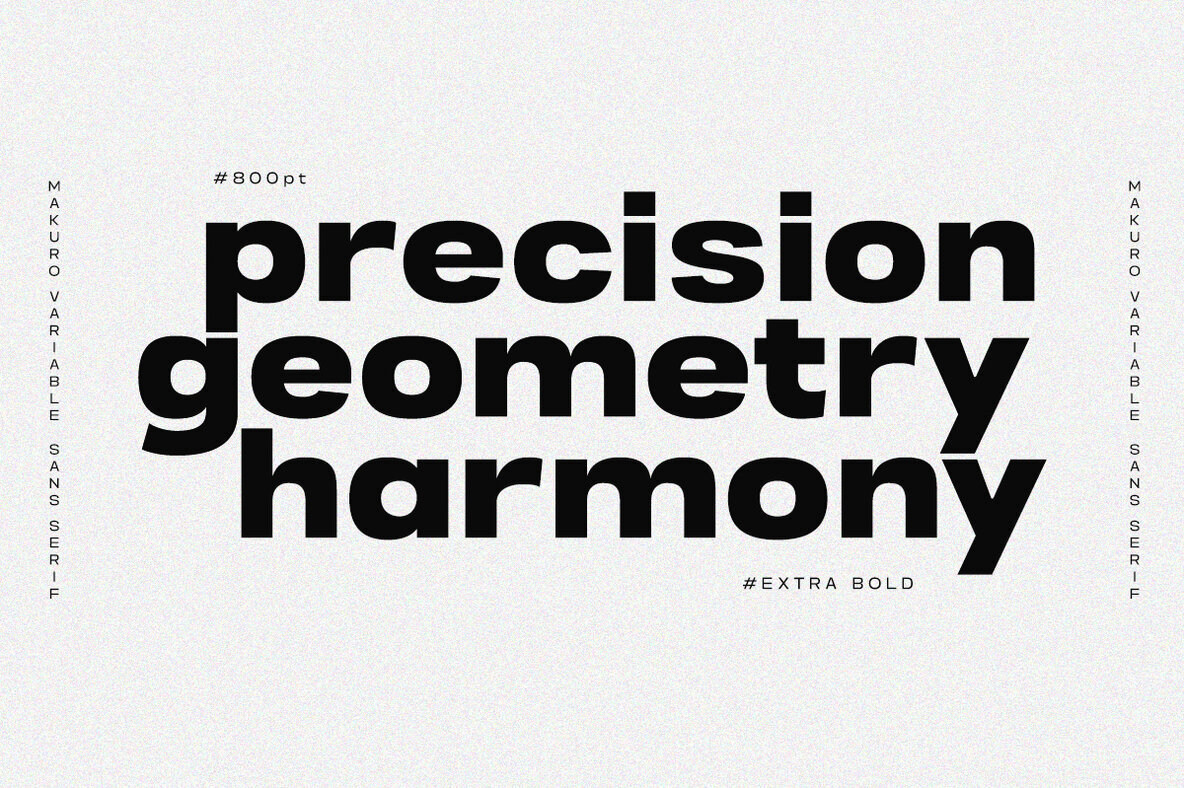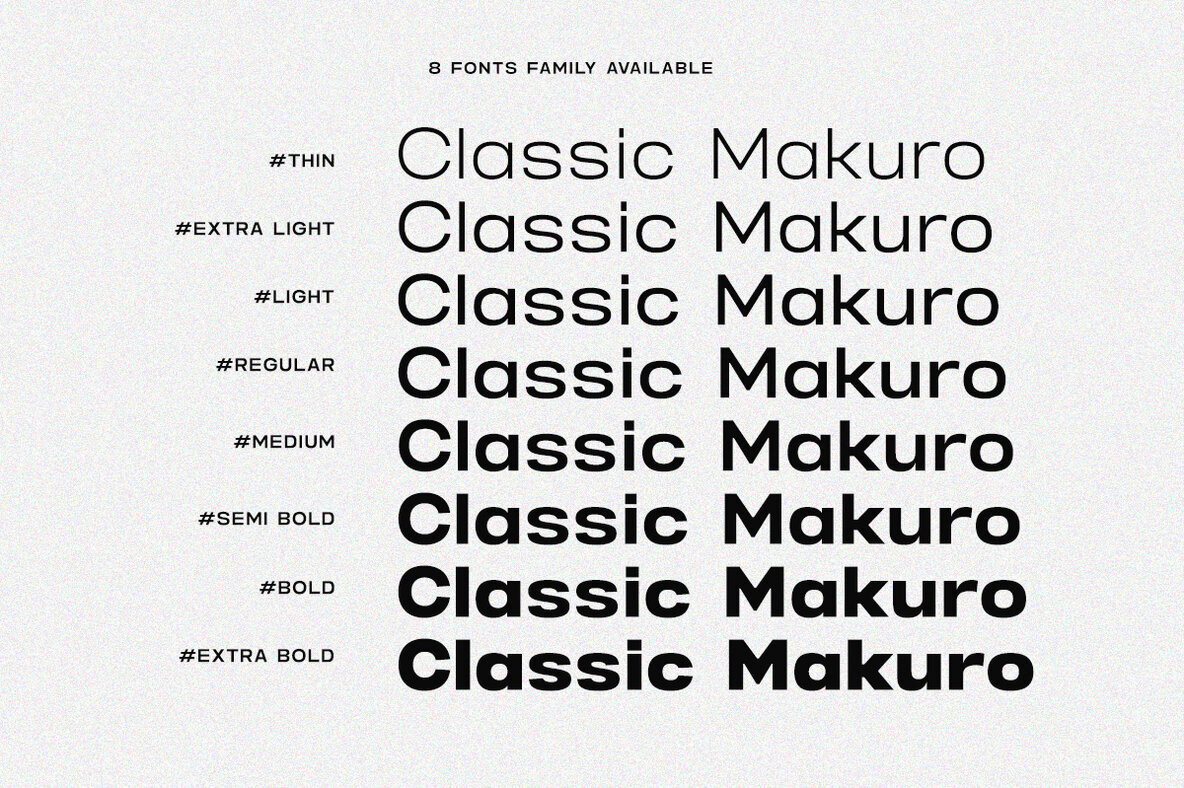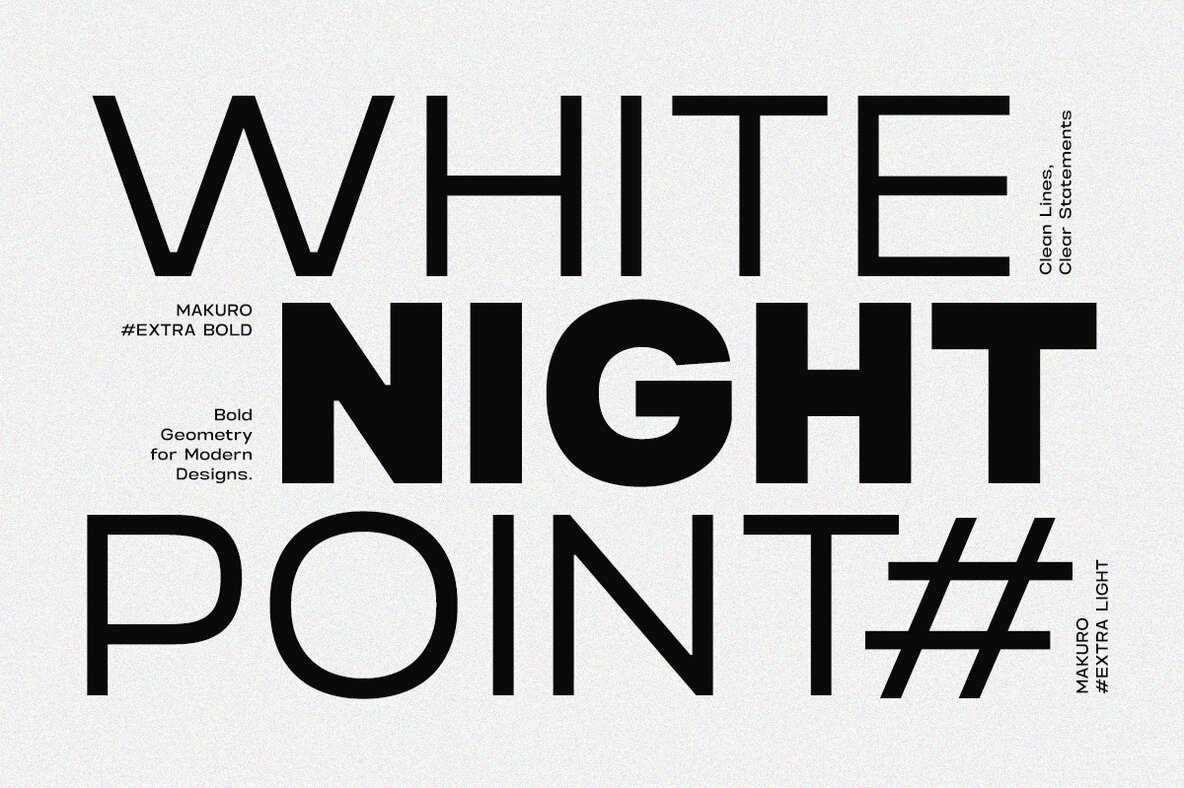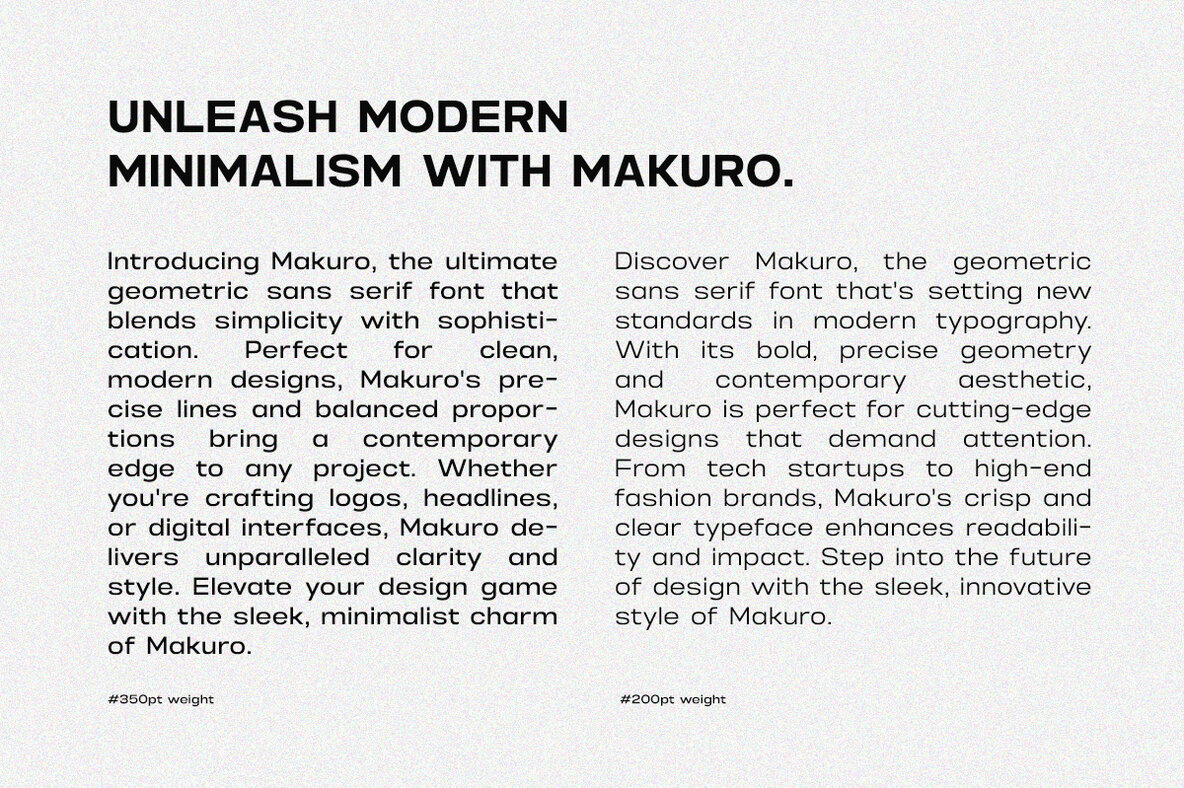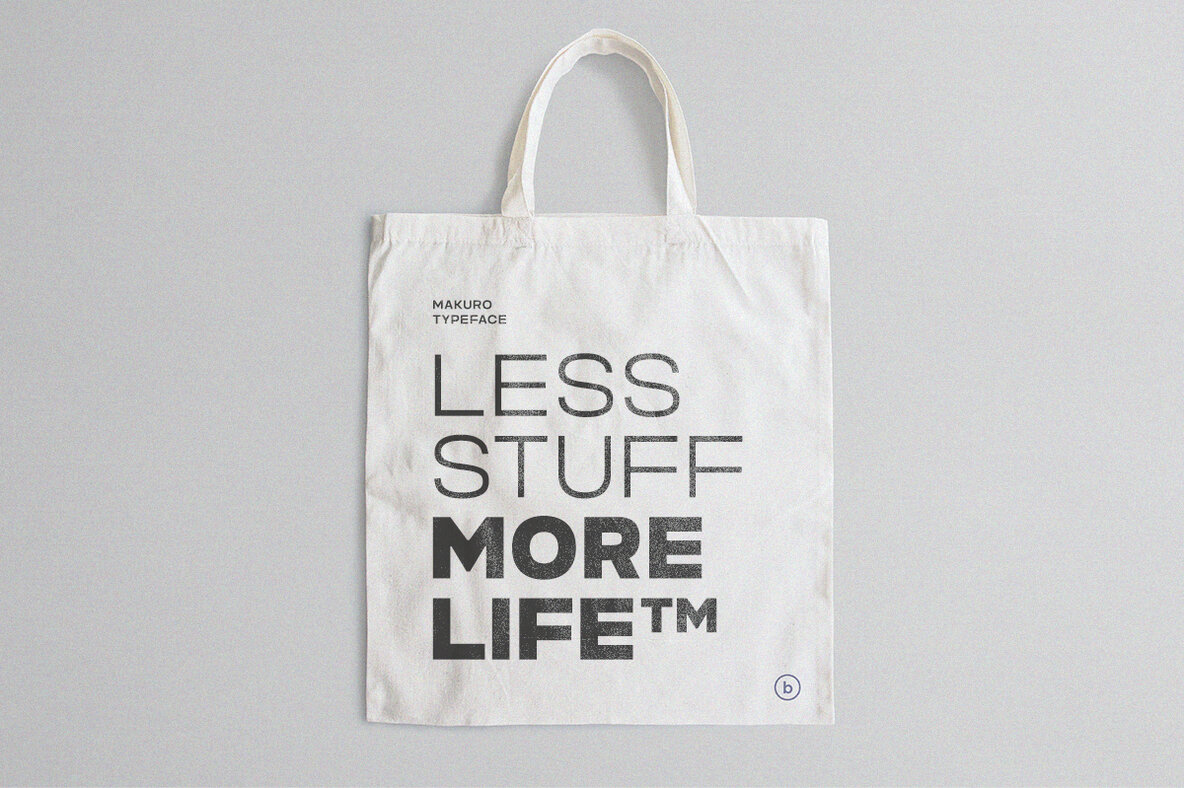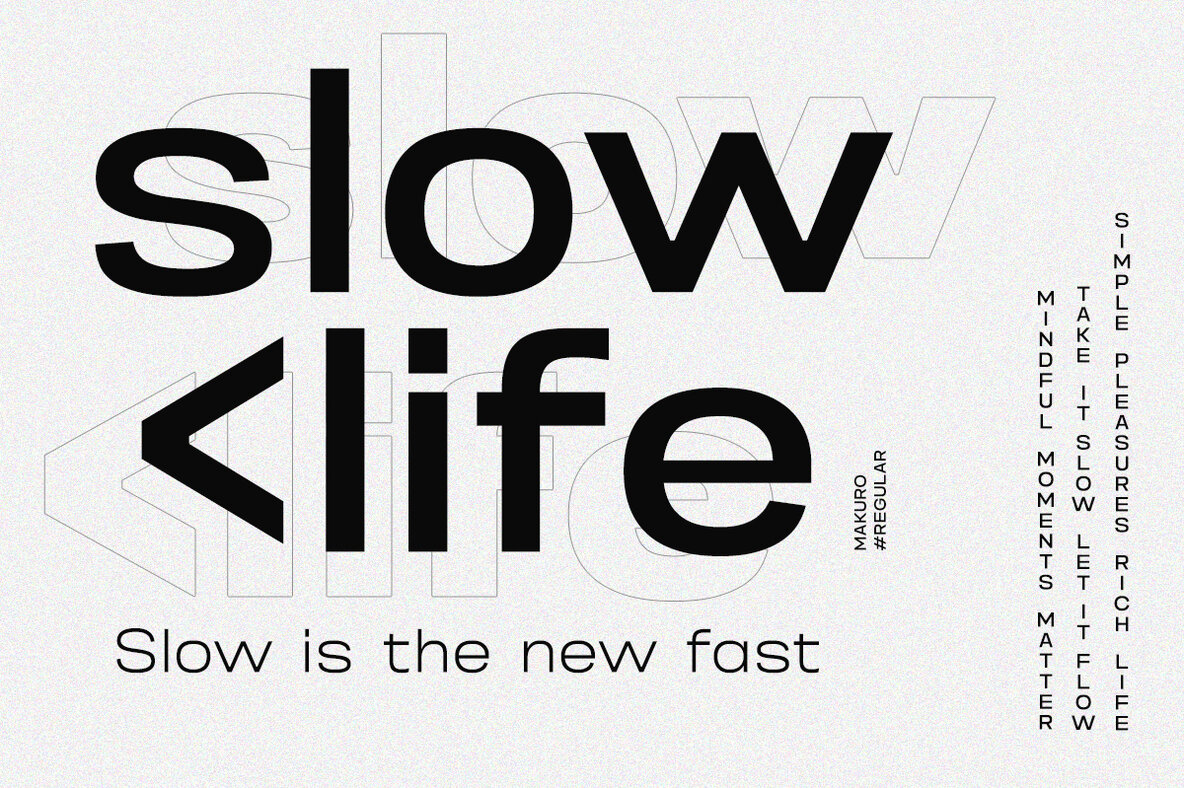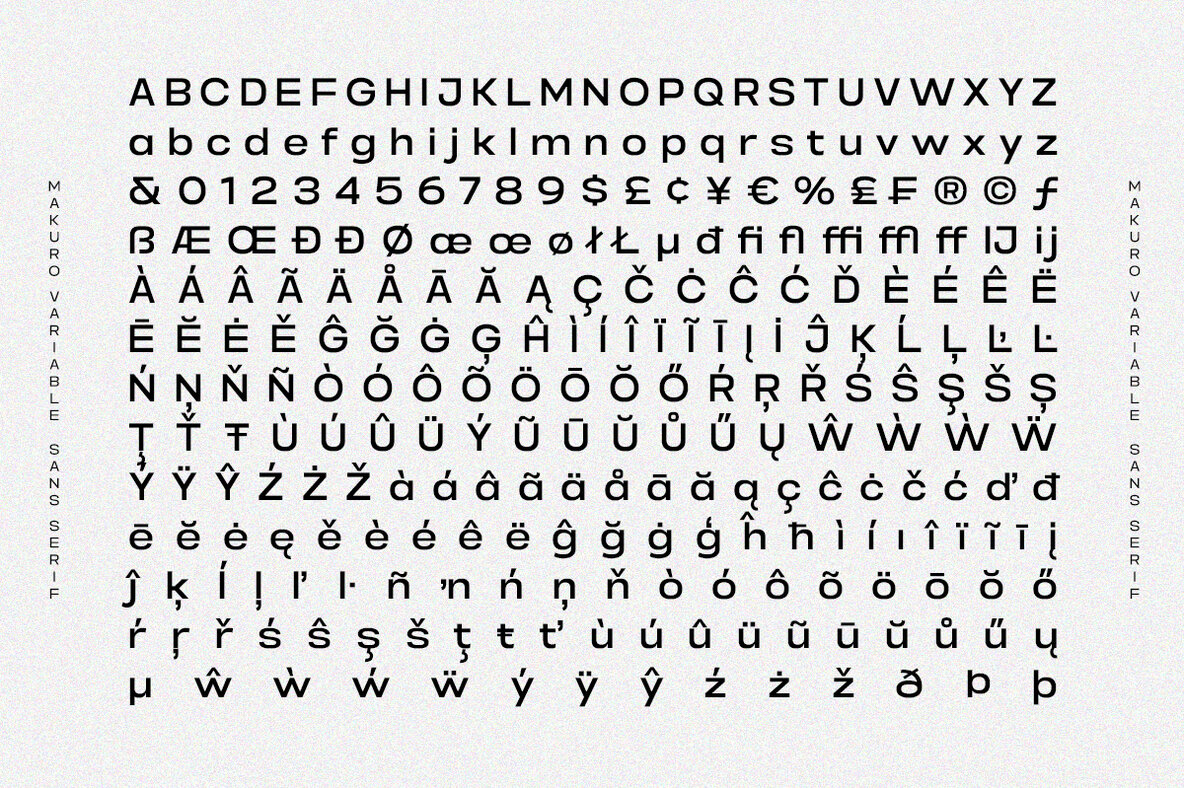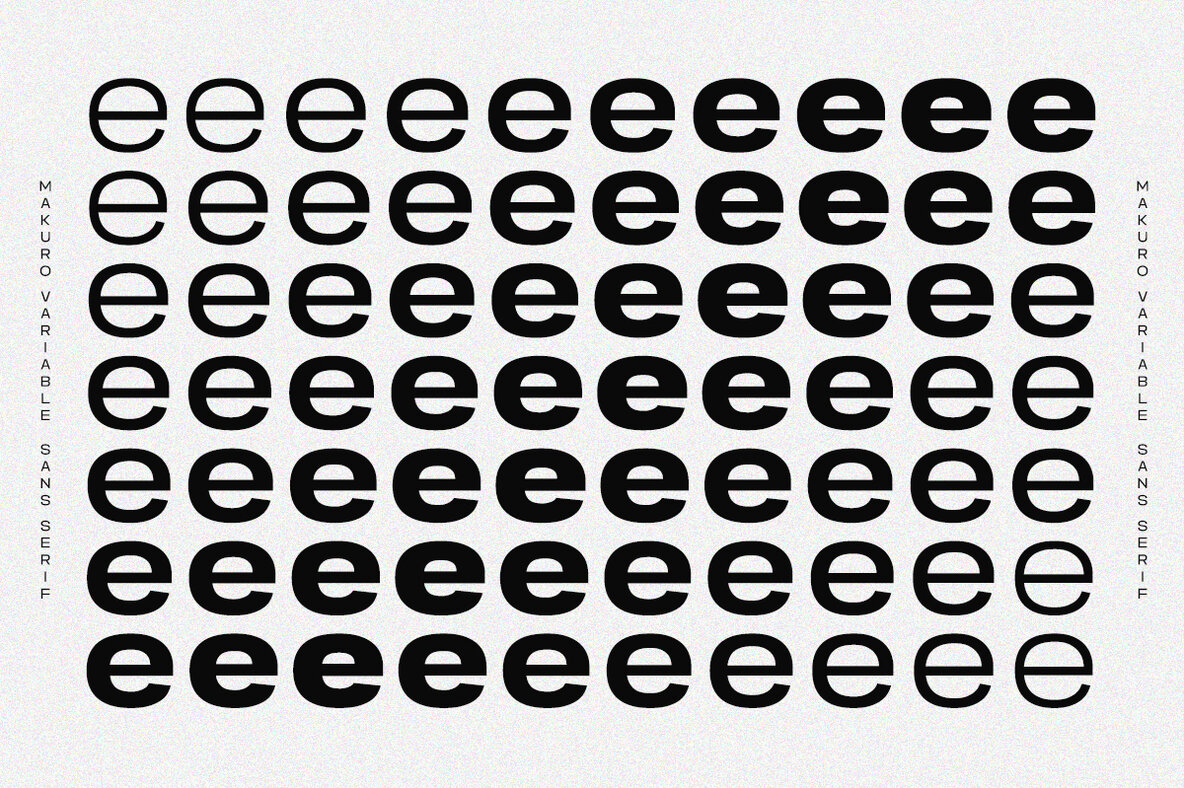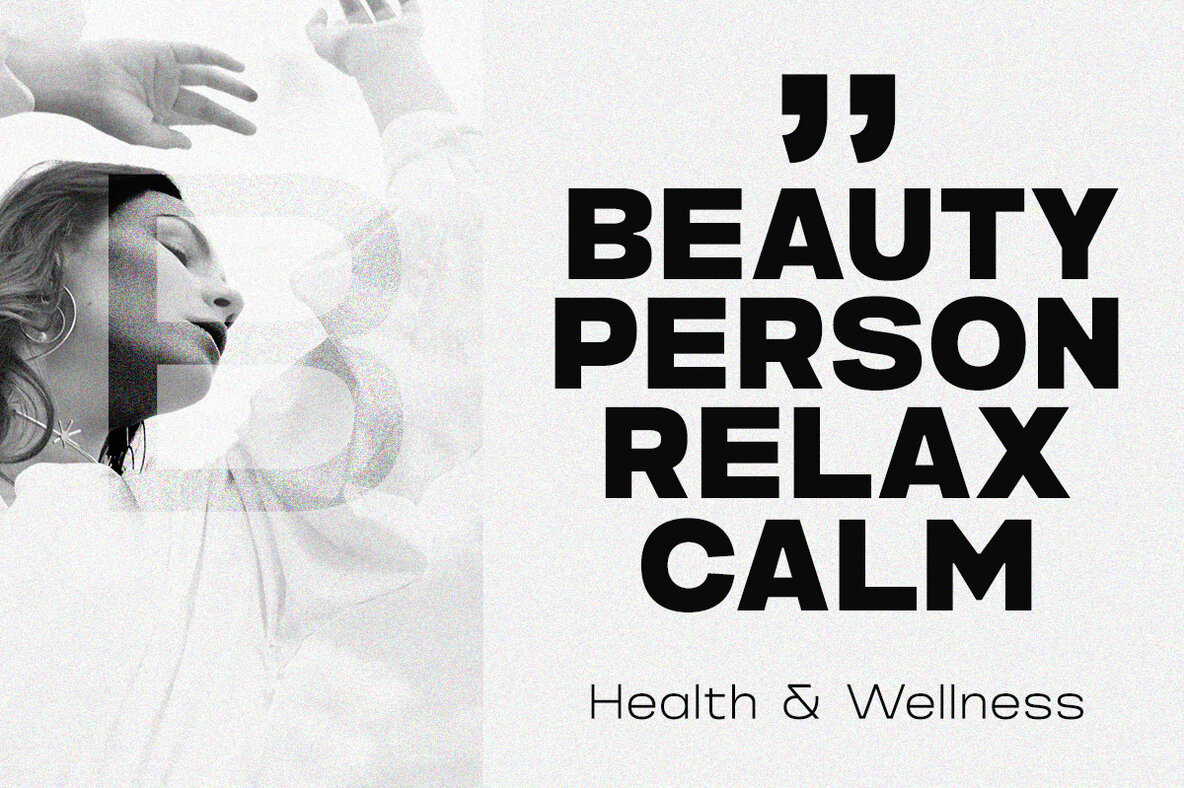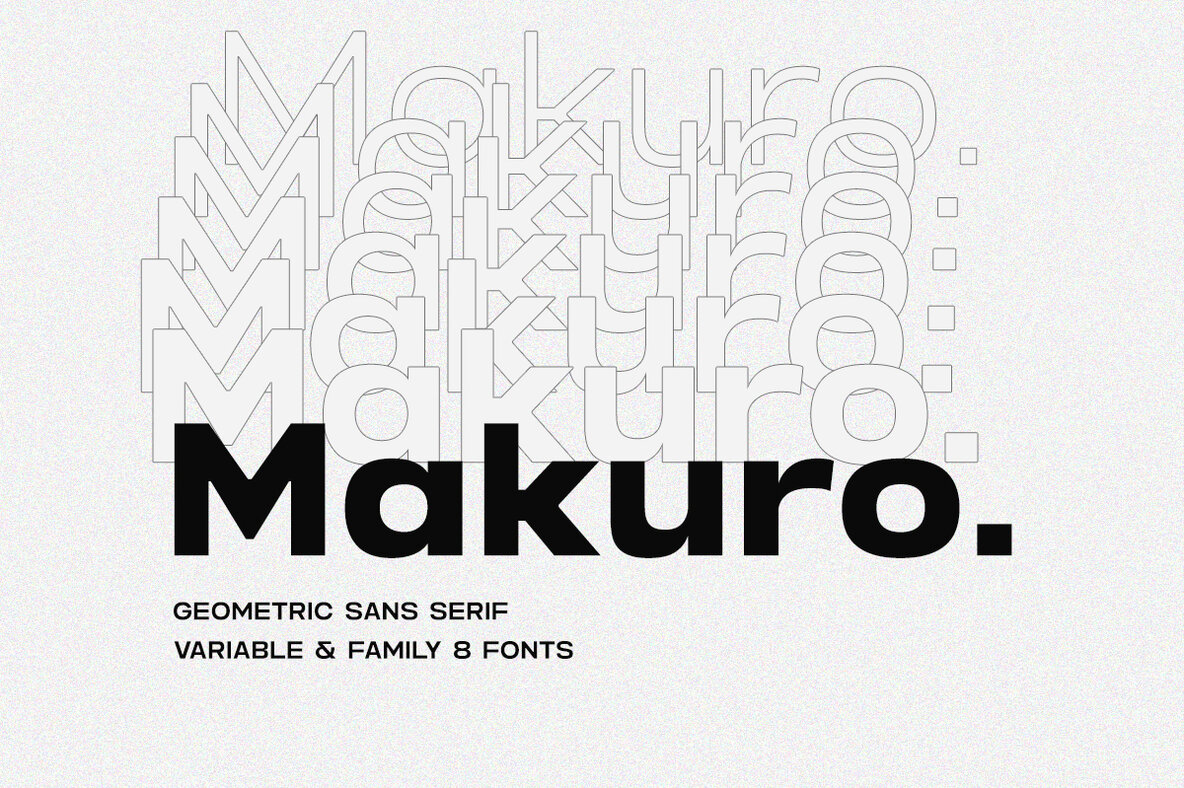
Makuro Font
Makuro is a meticulously crafted variable font family that embodies modern design through its geometric sans-serif style. Designed for versatility, Makuro adapts seamlessly to various design projects, from commanding headlines to elegant body text.
Key Features:
- Variable Font: Offers full control over weight and width, allowing you precise typography adjustments. Whether for minimalist layouts or dynamic compositions, Makuro ensures a perfect match.
- Geometric Sans-Serif: Featuring clean lines and balanced proportions, Makuro provides clarity and sophistication. Ideal for branding, editorial design, web, and user interfaces.
- Extensive Family: Includes multiple weights and styles, offering a comprehensive toolkit for diverse design needs. From Ultra Light to Black, there’s a suitable tone for every project.
- Language Support: With extensive language coverage, Makuro supports multiple languages and character sets, ensuring global communication.
- Optimized for Digital and Print: Designed to maintain sharpness and legibility across all mediums.
Makuro combines the precision of geometric design with the flexibility of variable font technology, making it an ideal choice for designers seeking both beauty and functionality.